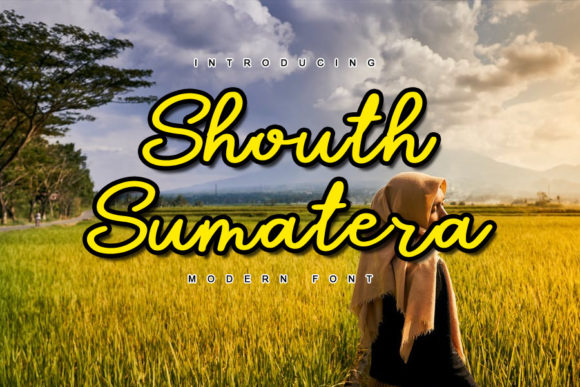
Introducing South Sumatera Font, the enchanting script font that will cast a spell on your designs. Its elegant curves and flowing strokes evoke the spirit of Halloween, making it the perfect choice for creating hauntingly beautiful invitations, captivating social media posts, and more.
Crafted by the renowned designer ABBAsalam, South Sumatera Font exudes a touch of mystery and intrigue. Its well-balanced structure ensures readability while adding a touch of sophistication to your creations.
Immerse yourself in the ravishing style of South Sumatera Font. Its versatility extends from creating exquisite wedding invitations to designing captivating stationary art. Whether you're a seasoned designer or just starting your creative journey, this font will elevate your work to new heights.